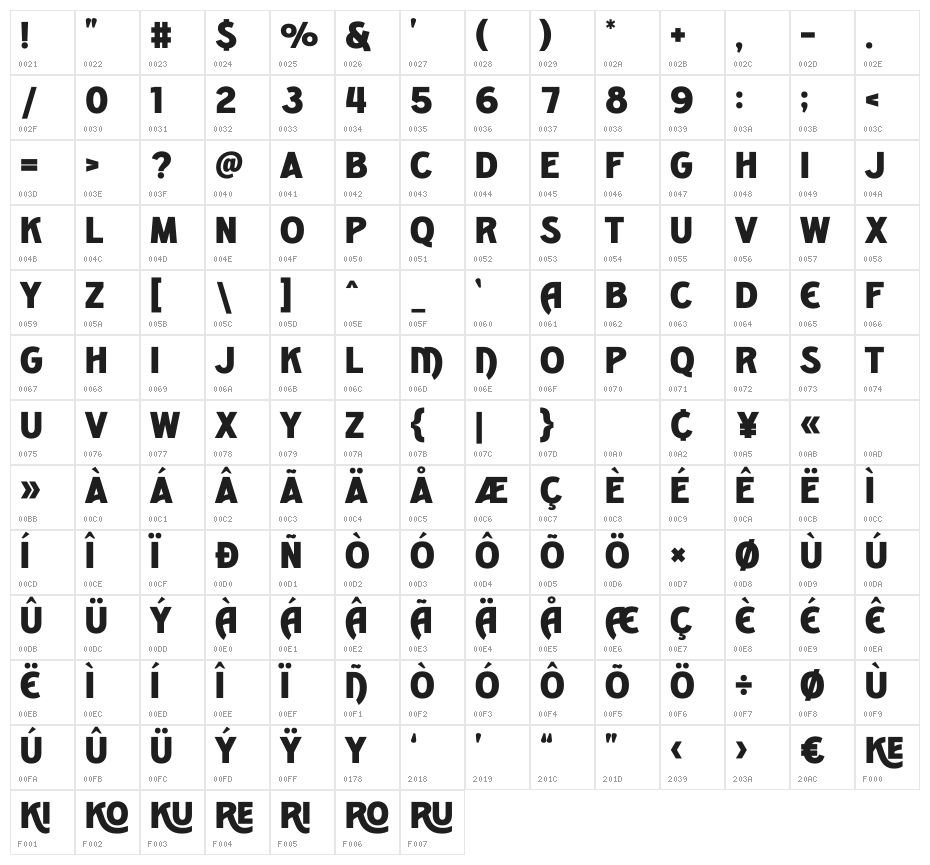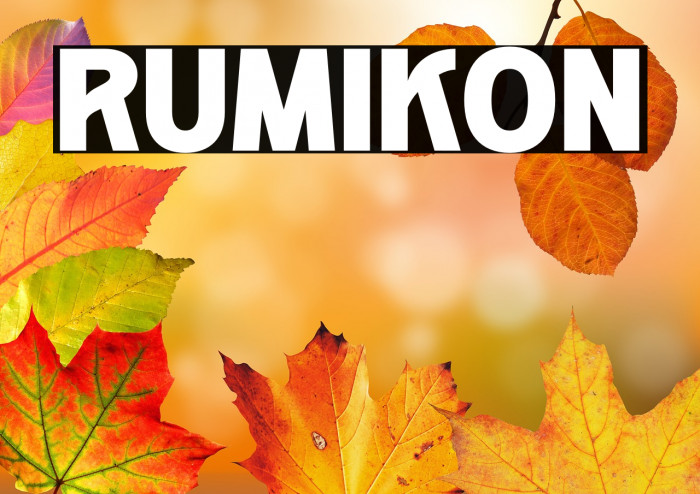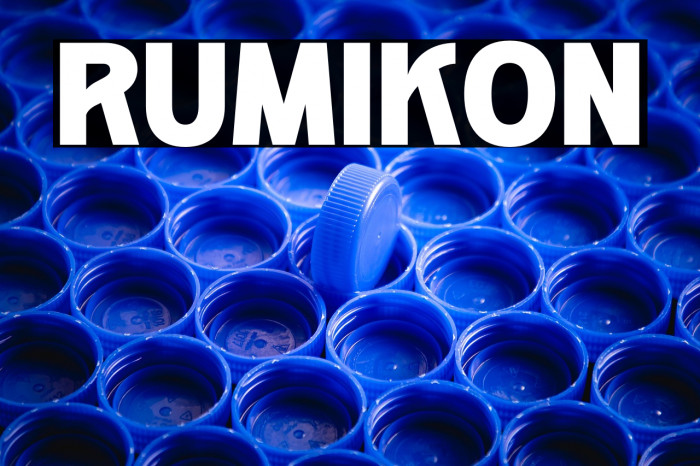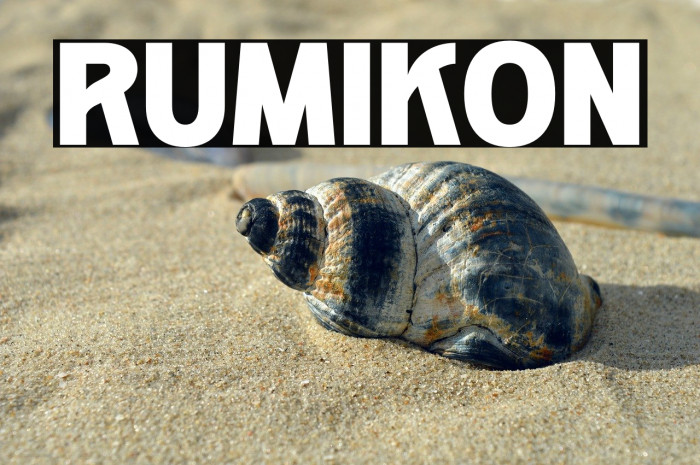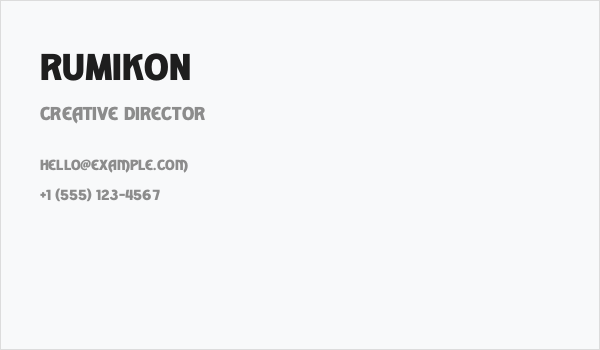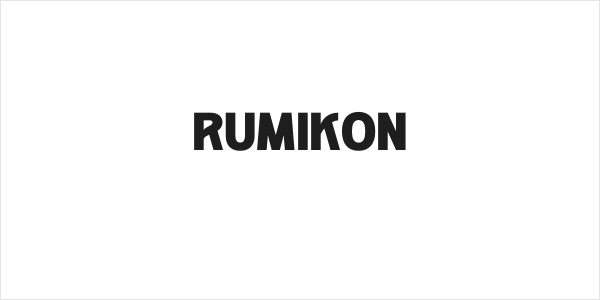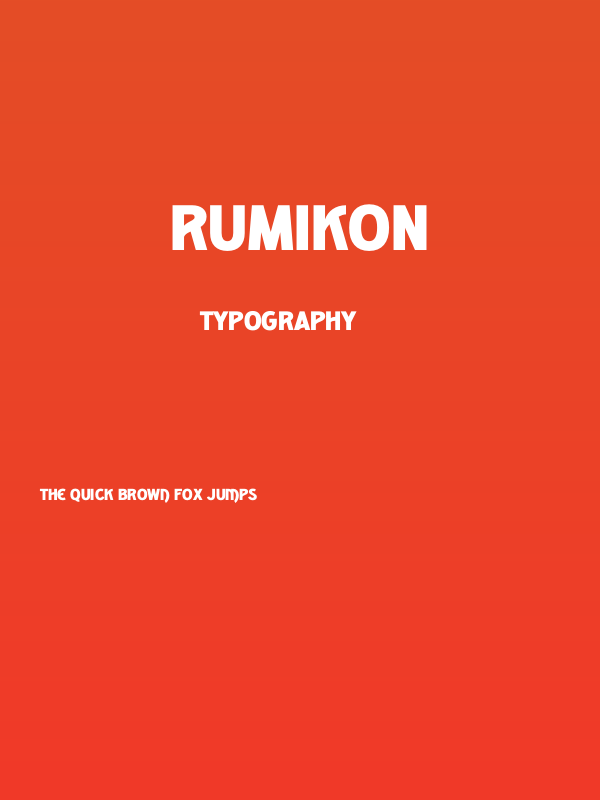
RUMIKON Font
RUMIKON Description
This font features bold, geometric shapes with a strong presence. The uppercase letters are uniform in height, creating a cohesive and structured appearance. The lowercase letters maintain the same boldness, with some characters exhibiting unique curves and angles that add a touch of modern flair. Numbers are equally bold and clear, ensuring readability. Special characters are designed to match the overall bold aesthetic, making them stand out effectively. This font's style is both striking and versatile, suitable for various design needs.